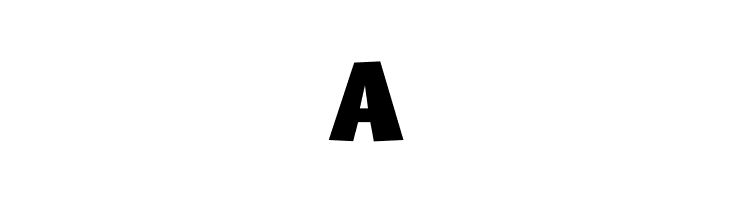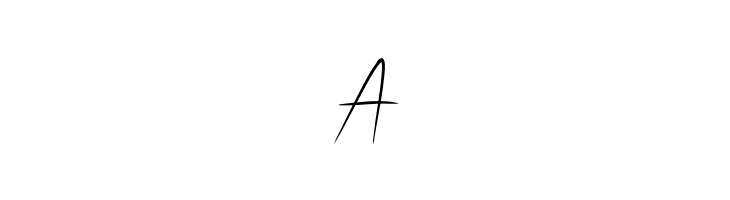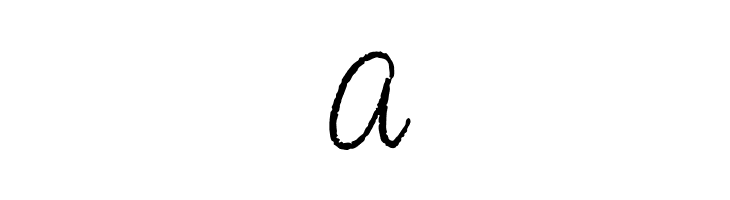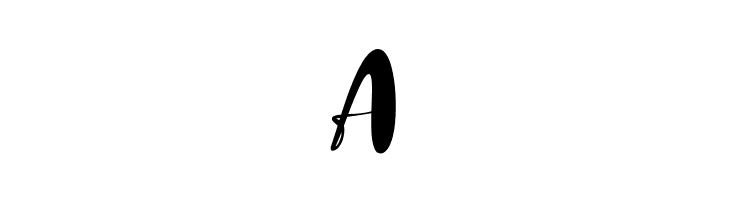
A bold, brush-stroke style font with an energetic and hand-drawn appearance.
A bold, expressive brush-style font with dynamic and fluid strokes.
A whimsical font featuring illustrated faces with mustaches for each character.
A bold, dynamic script font with a handwritten, energetic style.
A bold, dynamic script font with flowing, energetic strokes.
A bold, expressive script font with flowing cursive letterforms.
A bold, dynamic script font with a brush-like texture and energetic style.
A bold, playful script font with decorative loops and curls.
A whimsical and playful font with curly, flowing letterforms.
A bold, brush-style font with dynamic, expressive strokes.
A bold, expressive handwritten font with dynamic strokes and a brush-like texture.
A bold, energetic handwritten font with fluid, expressive strokes.
A bold, cursive script font with elegant, flowing lines and a strong presence.
A playful, hand-drawn font with a whimsical and casual style.
An elegant script font with intricate swashes and decorative flourishes.
An elegant, cursive font with a sophisticated and artistic style.
A flowing, cursive script font with elegant loops and swirls.
A romantic and elegant cursive script font with flowing connections.
A bold, playful handwritten font with a casual and friendly style.
A textured, elegant cursive font with a modern, distressed look.
A fluid and elegant script font with high contrast and natural handwriting style.
A bold, brush-style font with dynamic, handcrafted strokes.
A bold, brush-stroke style font with an expressive, handcrafted look.
A dynamic and flowing script font with elegant, cursive letterforms.
A bold, angular font with a modern, geometric style.
A whimsical script font with heart motifs and elegant cursive flow.
An elegant script font with flowing, cursive letters and a romantic feel.
An elegant and sophisticated script font with flowing curves and ornate details.
A textured, handwritten font with flowing cursive lowercase and structured uppercase letters.
An elegant script font with flowing, cursive letterforms and decorative swashes.
A playful, handwritten font with smooth, flowing lines and a casual style.